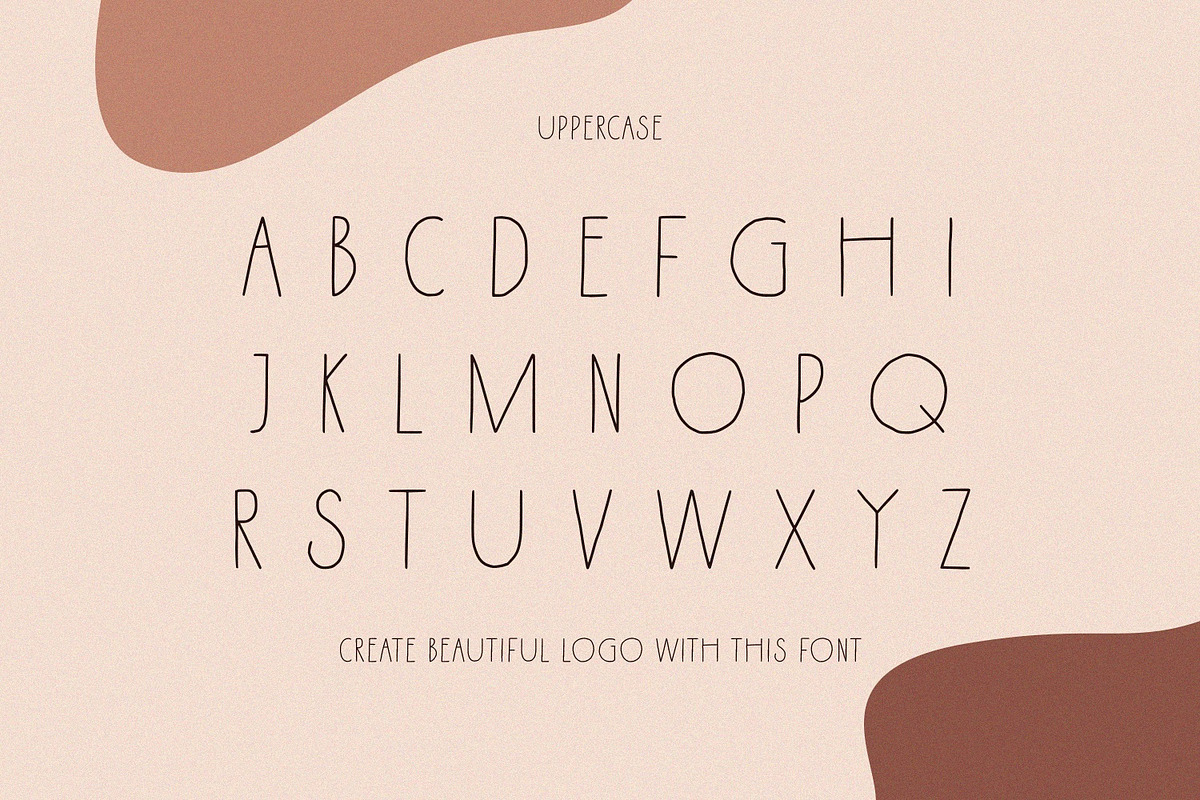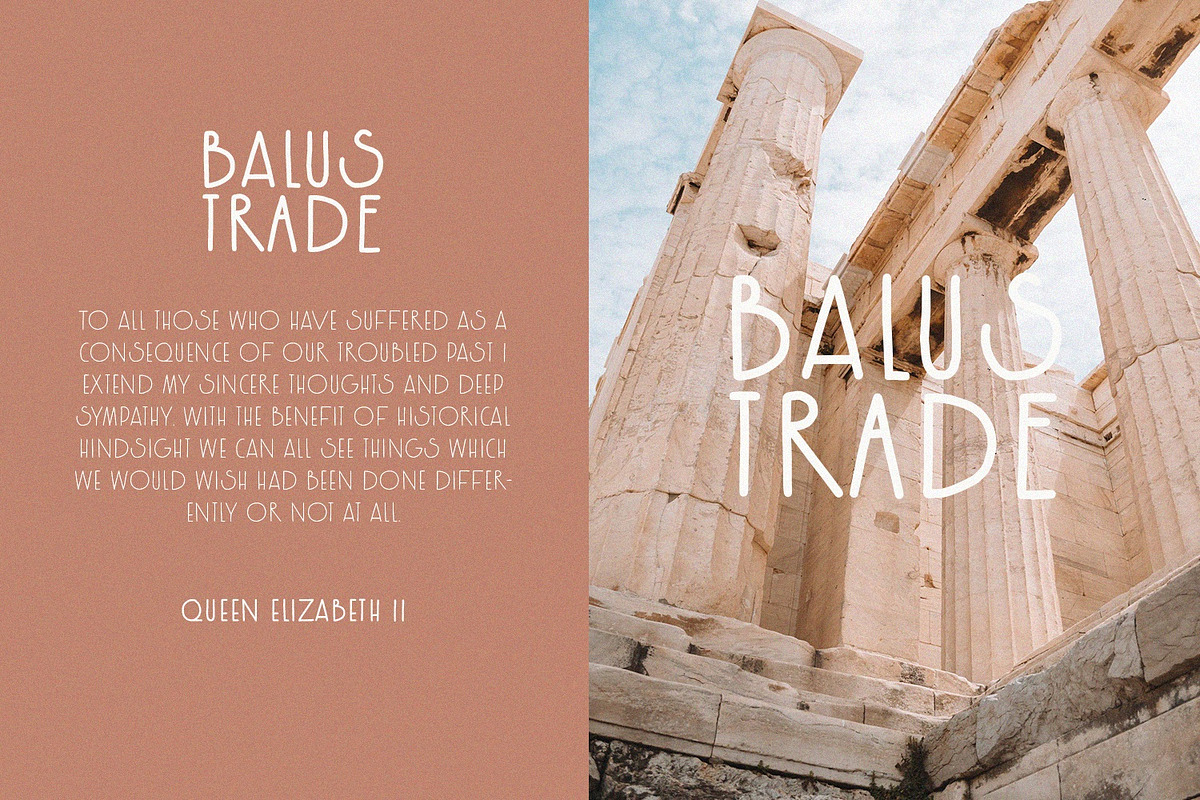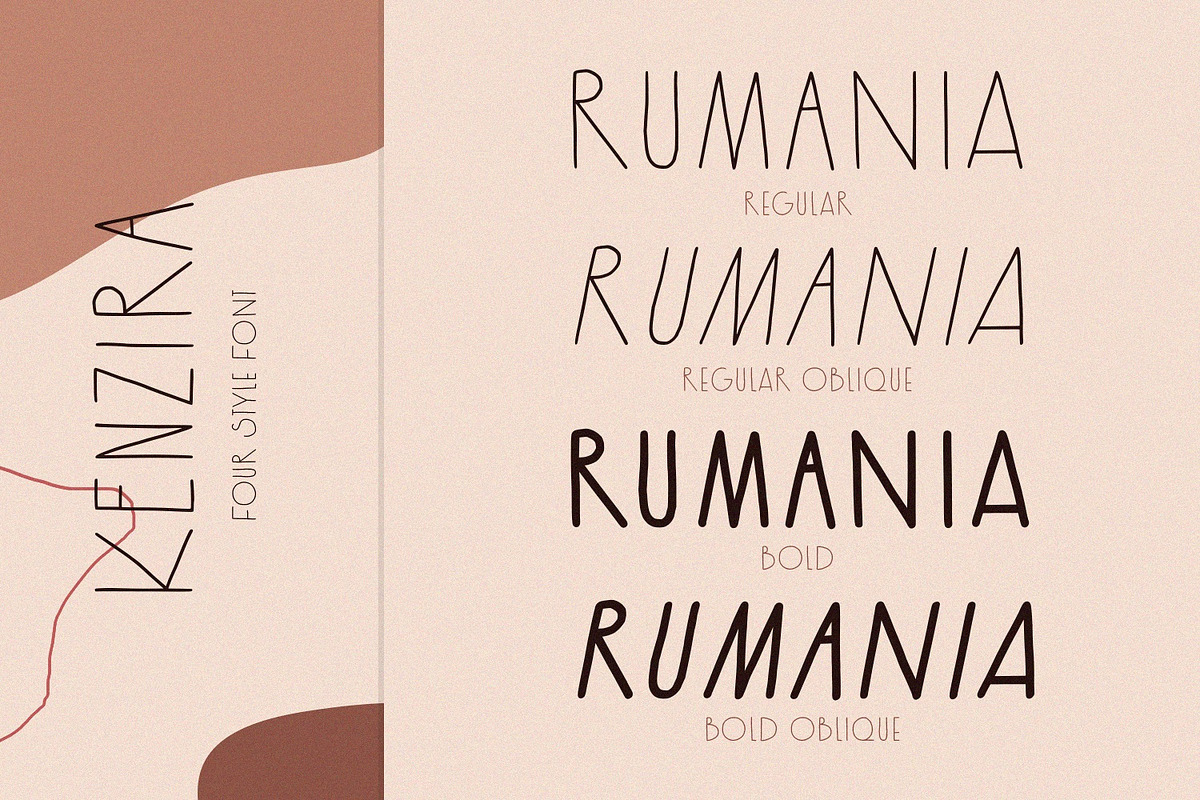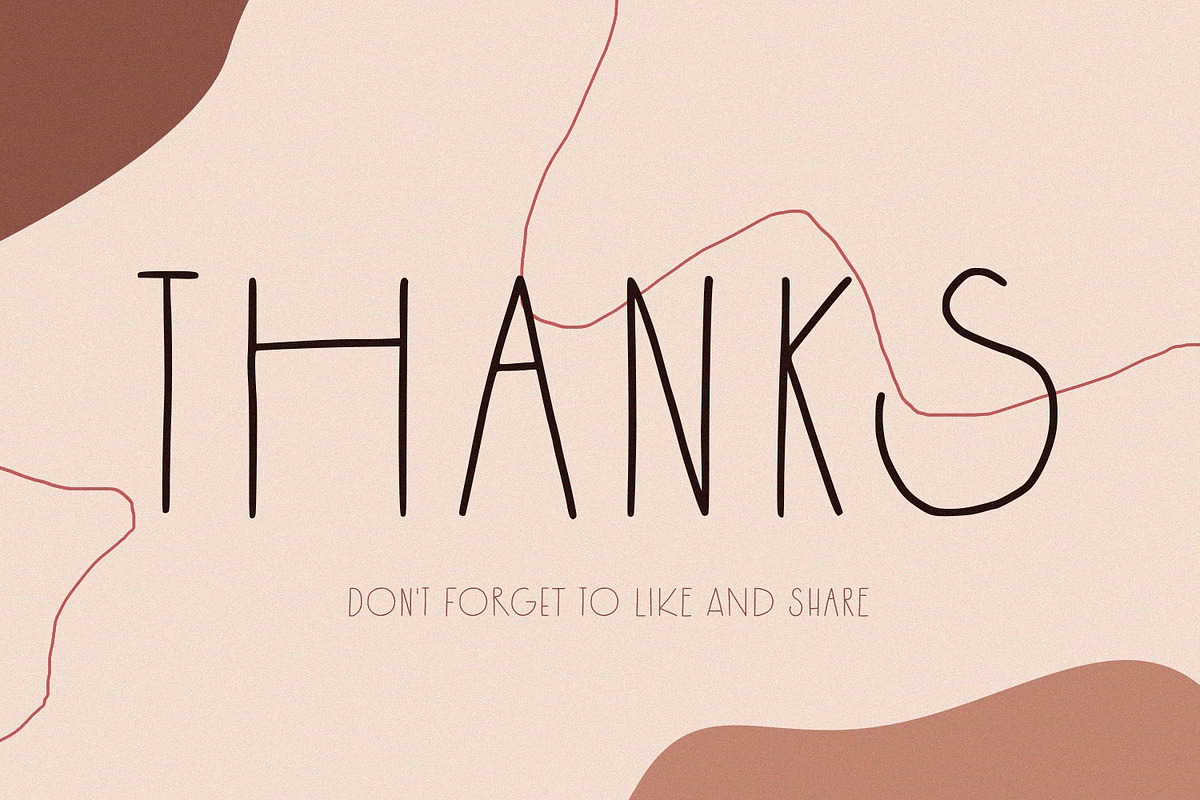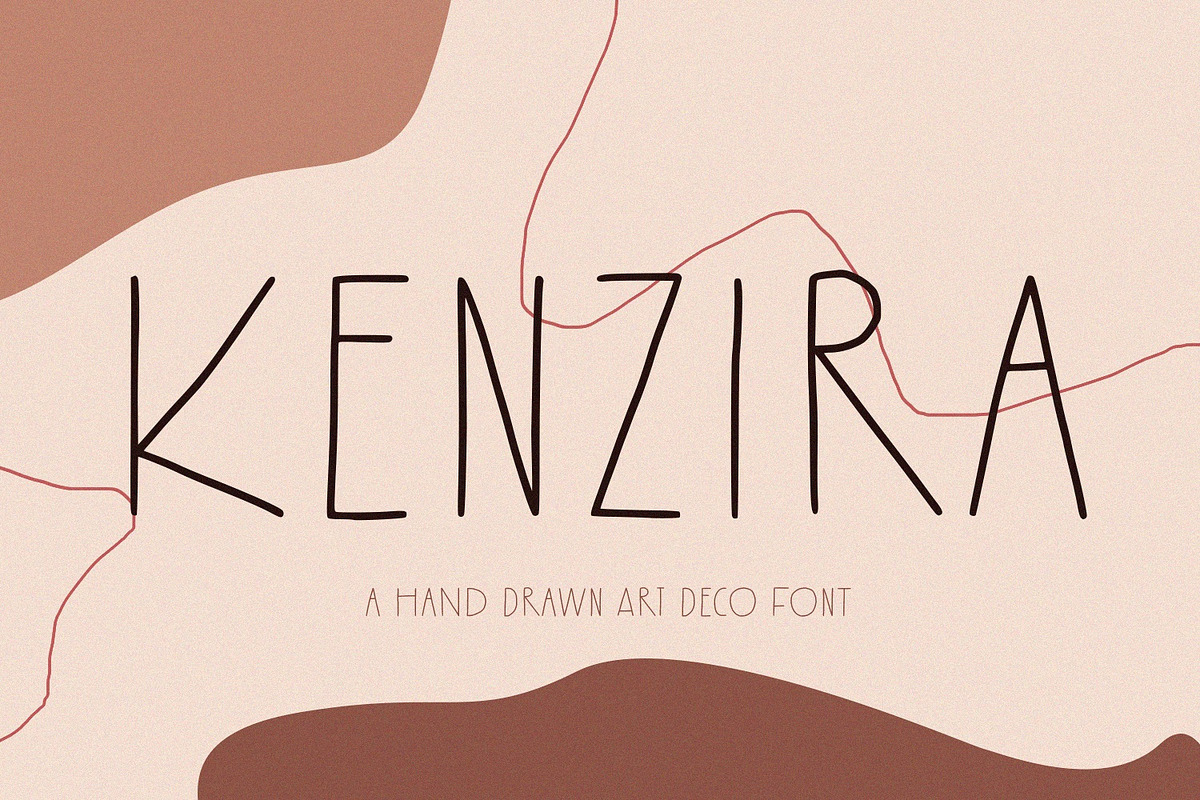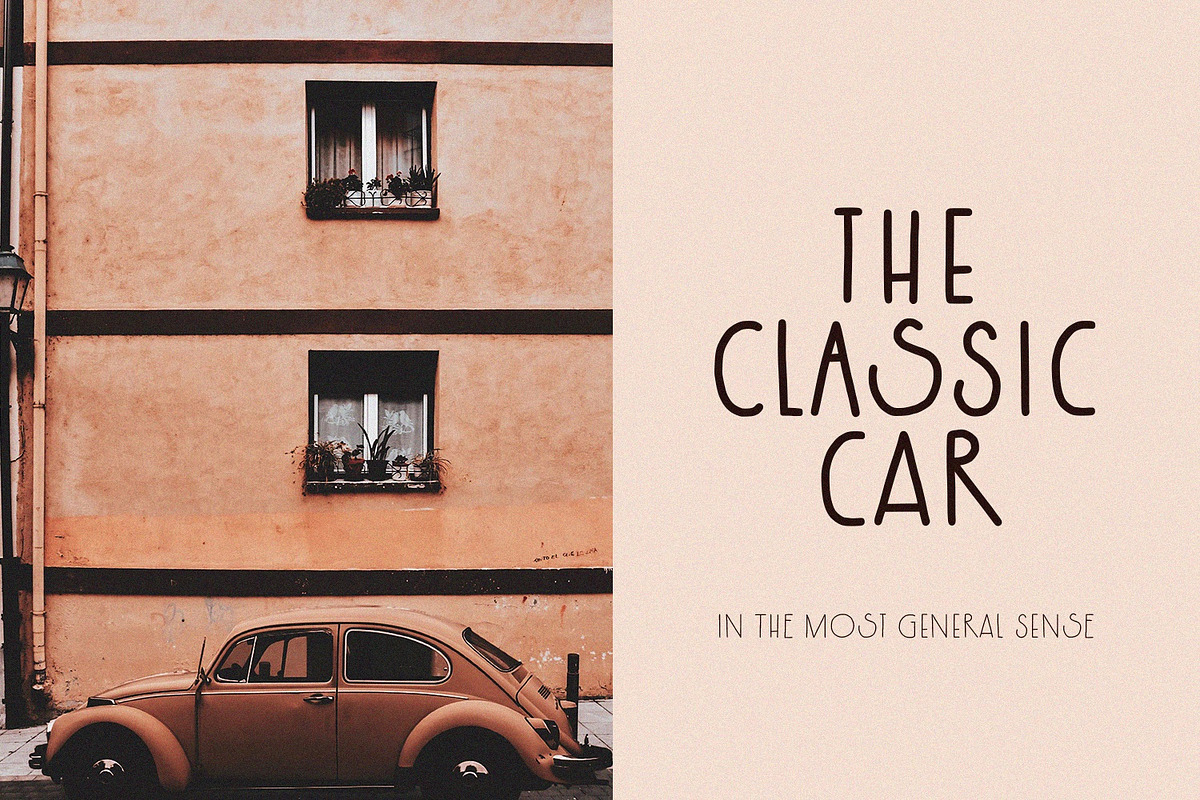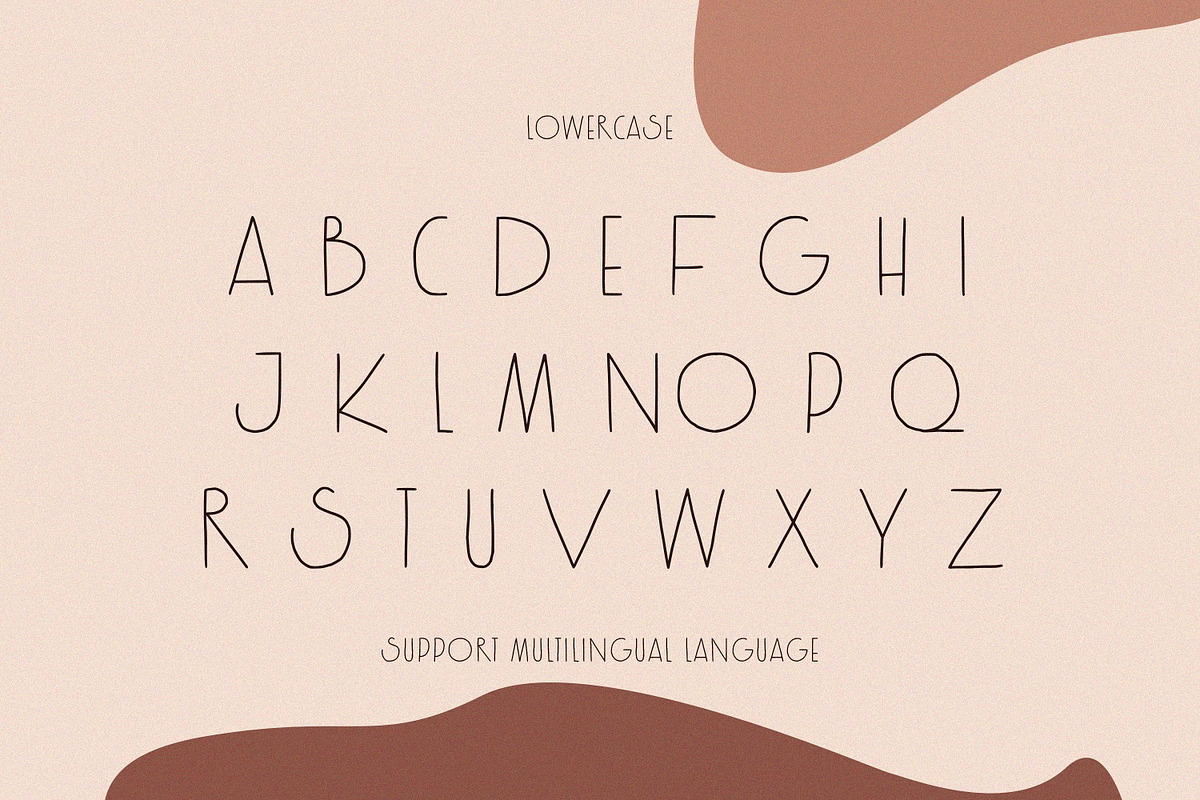
Kenzira - A Hand Drawn Art Deco Font
Kenzira - A Hand Drawn Art Deco Font and minimalist character! it's perfect for logos, name card, magazine layouts, invitations, headers, or even large-scale artwork.
Kenzira - A clean - Regular, bold and oblique version, sans serif font including upper & lowercase characters, numerals and more of symbols.
Multilingual support for various languages